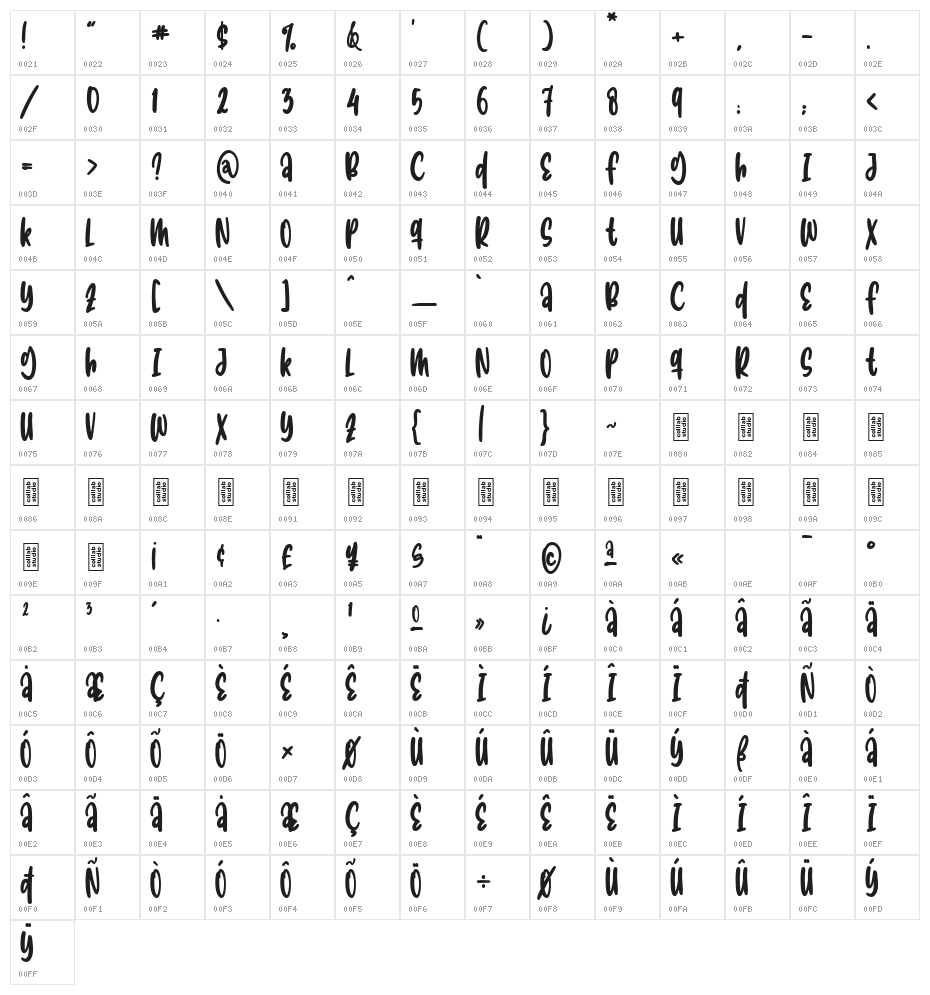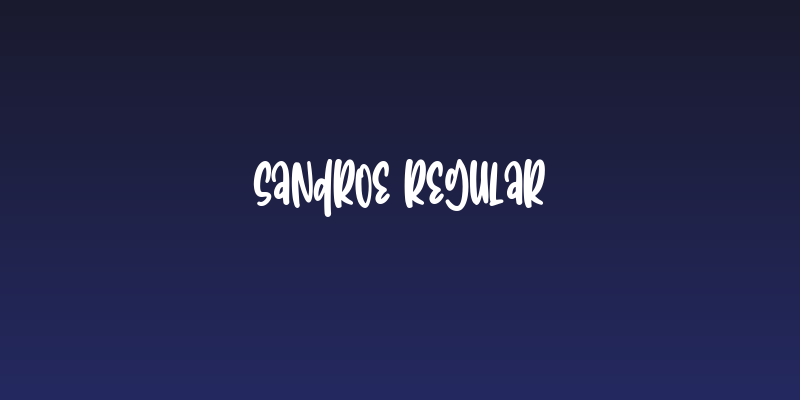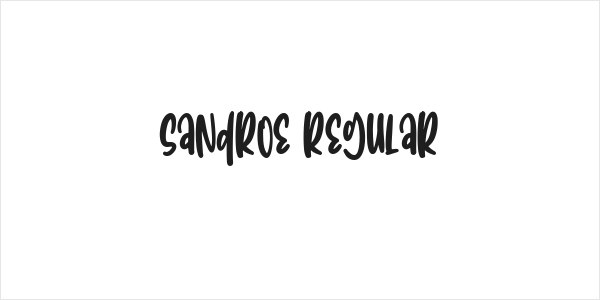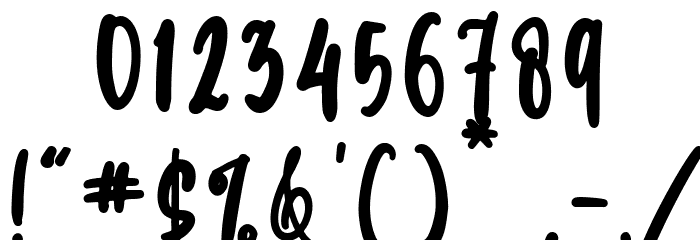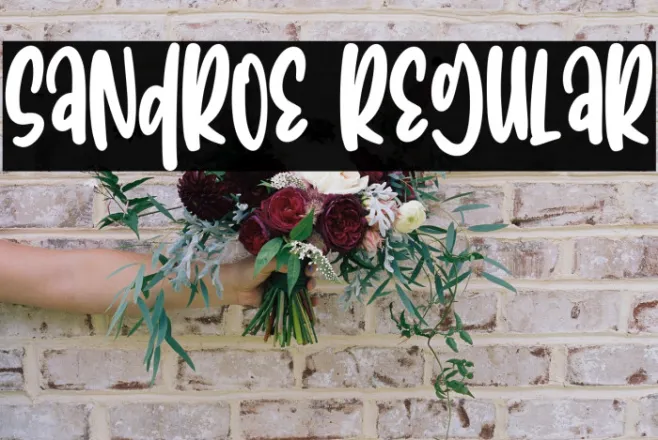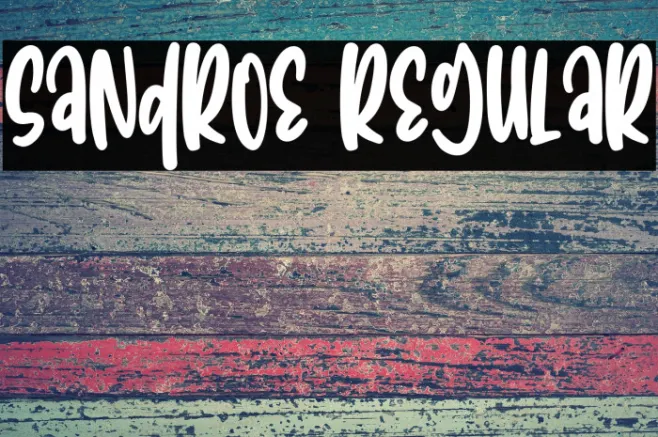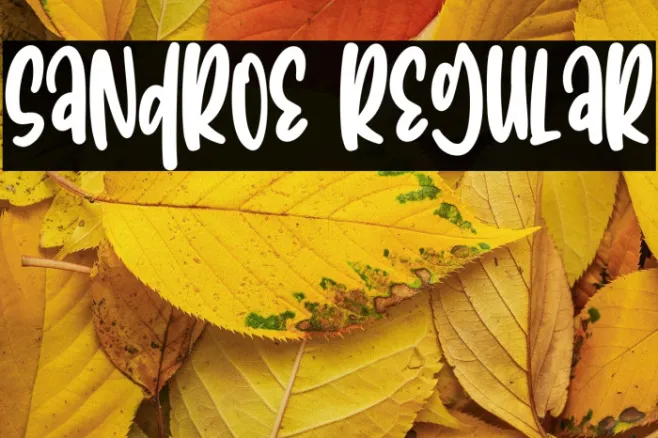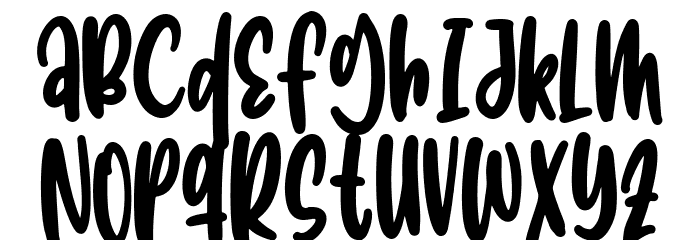
Sandroe Regular Font
Sandroe Regular Description
This font features a bold and expressive handwritten style, characterized by its thick strokes and playful curves. The letters are slightly slanted, giving a dynamic and energetic feel. The uppercase and lowercase letters maintain a consistent flow, while the numbers and special characters complement the overall design with their rounded and approachable forms. This font exudes a casual and friendly vibe, making it suitable for creative and informal applications.
| Proposed Projects | Ideal for greeting cards, posters, social media graphics, and branding projects that require a personal touch. |